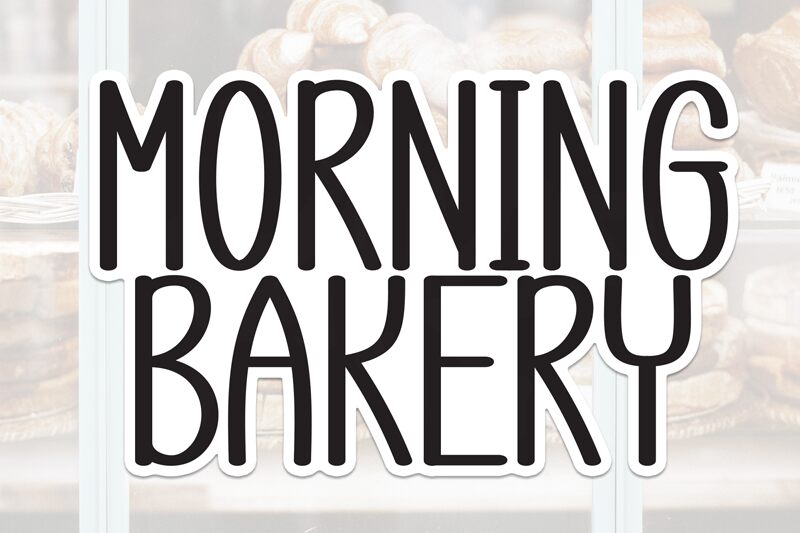
Morning Bakery
Morning Bakery font designed by Andi Moz is inspired by vintage script typography for a brush-pen handwritten look mimicking natural cursive handwriting. Its whimsical, playful, and casual feel makes it more effective considering its condensed style that attracts the reader’s attention. It is an overall friendly font that will please the eye in casual introductory texts or designs.
Put this free handwritten font to use in packaging design for sweets and beverages or branding projects related to bakeries and cafes. Resume design, poster design, social media templates, business plan presentations, magazines layout decoration, event invitations; all of these are other possible uses.